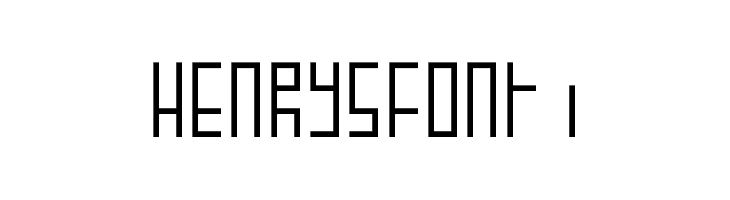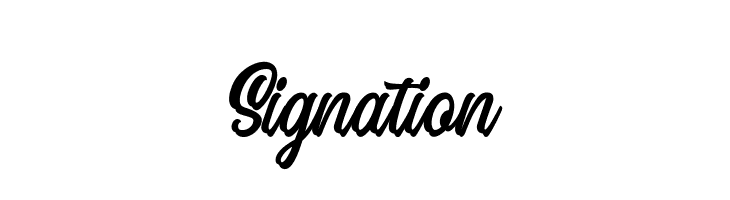
A lively and dynamic script font with fluid, connected letterforms and moderate stroke contrast.
A futuristic, hollow font with geometric and angular elements.
A bold, energetic handwritten font with expressive strokes and playful character.
An elegant script font with ornate uppercase and fluid lowercase letters.
A pixelated, retro-style font with a playful, digital aesthetic.
The image contains placeholder symbols, not a valid font.
A bold, geometric font with a futuristic and mechanical style.
A high-contrast serif font with elegant, refined strokes and sharp serifs.
A bold, geometric font with a 3D effect and thick outlines.
A modern, high-contrast font with bold lines and artistic curves.